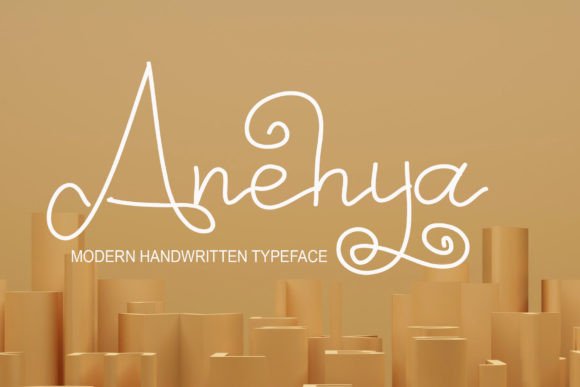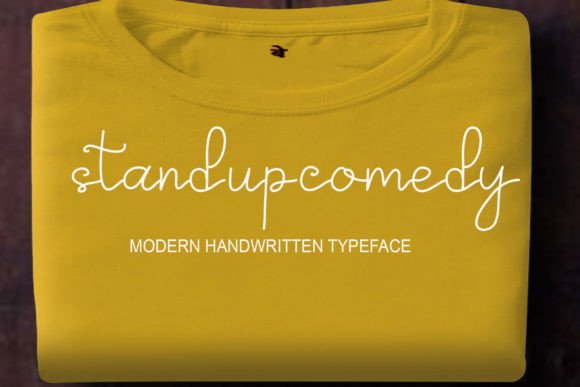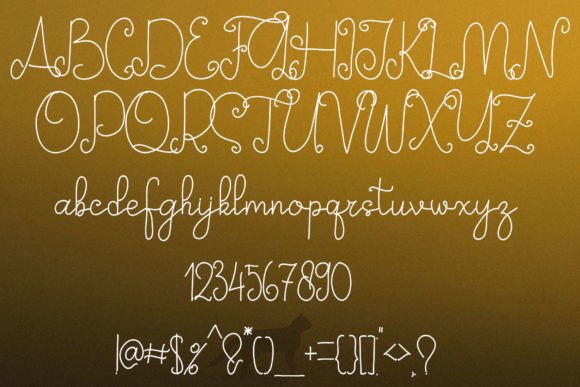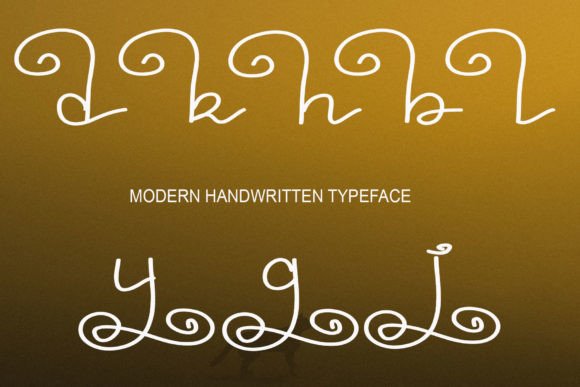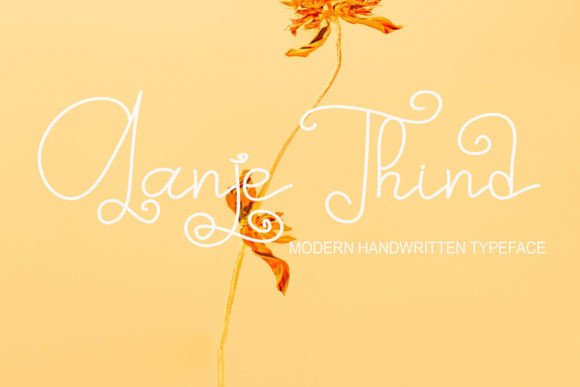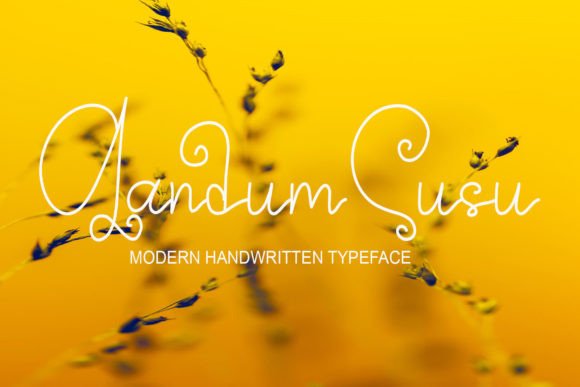
Anehya Font
The Anehya Font Download is a beautiful and light handwritten script designed to bring elegance and uniqueness to your creative projects. With graceful strokes and a refined flow, this font creates a luxurious impact without losing its natural charm. Because of its versatile design, Anehya is perfect for invitations, logos, cards, posters, and professional branding projects.
A Light Handwritten Script with Unique Elegance
Anehya combines the beauty of calligraphy with the ease of handwriting. Unlike many decorative fonts, this Anehya script font feels soft, modern, and expressive. As a result, it is an excellent choice for designs where clarity and luxury must work hand in hand.
Personal stationery always looks more memorable with handwritten details. The Anehya Font is ideal for wedding invitations, thank you cards, and seasonal greetings. Moreover, its light, romantic flow ensures every message feels heartfelt and stylish.
Branding and Logo Design with Anehya Font
Typography shapes a brand’s identity, and the Anehya handwritten font is perfect for boutique logos, packaging, and promotional materials. In addition, its elegant form gives businesses a sophisticated and professional appearance.
Posters, Titles, and Creative Displays
The Anehya Font Download adapts seamlessly to larger projects such as posters, magazine covers, and banners. Therefore, it works well in both print and digital formats, ensuring your designs always look polished and modern.
In today’s digital-first environment, fonts need to capture attention quickly. The Anehya typeface is a perfect choice for Instagram posts, Pinterest graphics, YouTube thumbnails, and blogs. Its delicate handwritten character makes digital content feel warm and engaging.
Why Designers Choose Anehya Typeface
Designers love fonts that balance beauty with practicality. Many handwritten scripts lose readability, but the Anehya handwritten script remains clear while keeping its stylish charm. This makes it a dependable option for professionals and creative enthusiasts alike.
Add Luxury Elegance to Your Work Today
If you want a handwritten script that feels light, beautiful, and versatile, the Anehya Font Download is the perfect choice. From invitations and logos to posters and social media, it elevates every design with timeless sophistication. Finally, download Anehya today and bring a luxury spark to your creative projects.